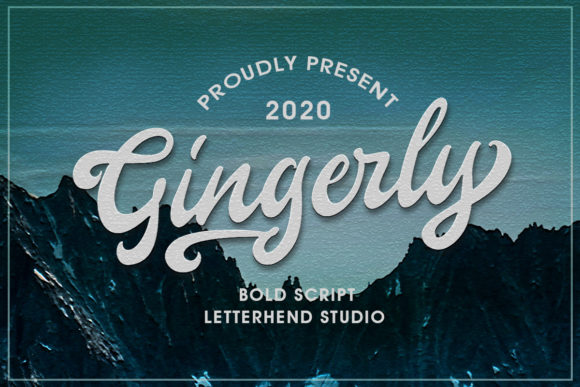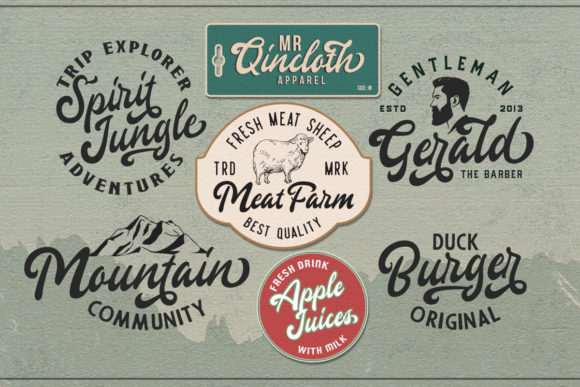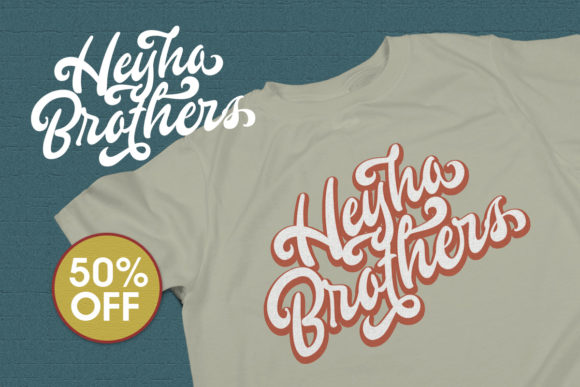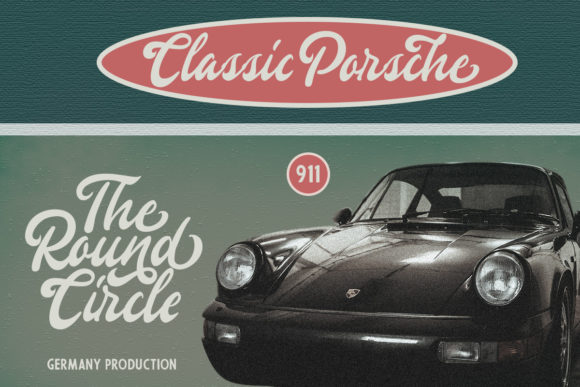
About Gingerly Font
Gingerly feels equally charming and elegant. It looks beautiful on invitations, thank you cards, quotes, greeting cards, logos, business cards and much more. This font is PUA encoded which means you can access all of the glyphs and swashes with ease!